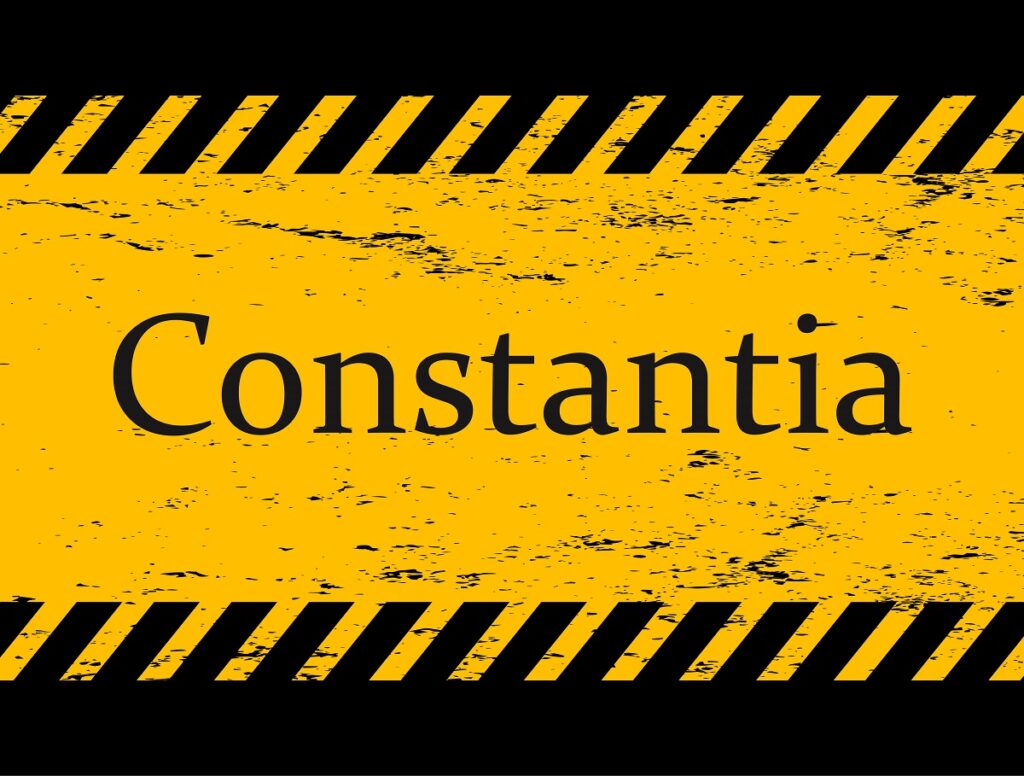
Constantia Font
Constantia is a serif typeface designed by John Hudson and commissioned by Microsoft.[2] It is a transitional serif design, influenced by Eric Gill’s Perpetua design. Development of the typeface began in 2003 and it was released in 2006. Constantia is part of the Clear Type Font Collection, a suite of fonts from various designers released with Windows Vista.
All start with the letter C to reflect that they were designed to work well with Microsoft’s Clear Type text rendering system, a text rendering engine designed to make text clearer to read on LCD monitors. The other fonts in the suite are Calibri, Cambria, Candara, Consolas and Corbel.
Constantia Serif Typeface